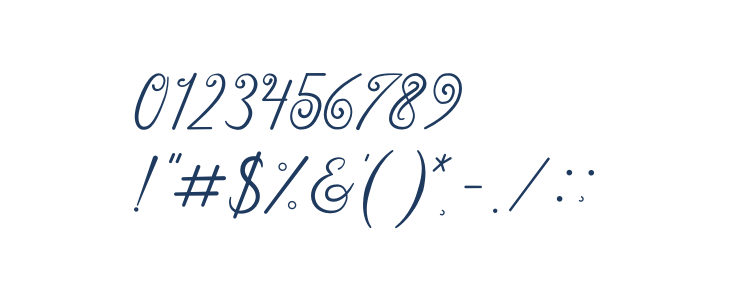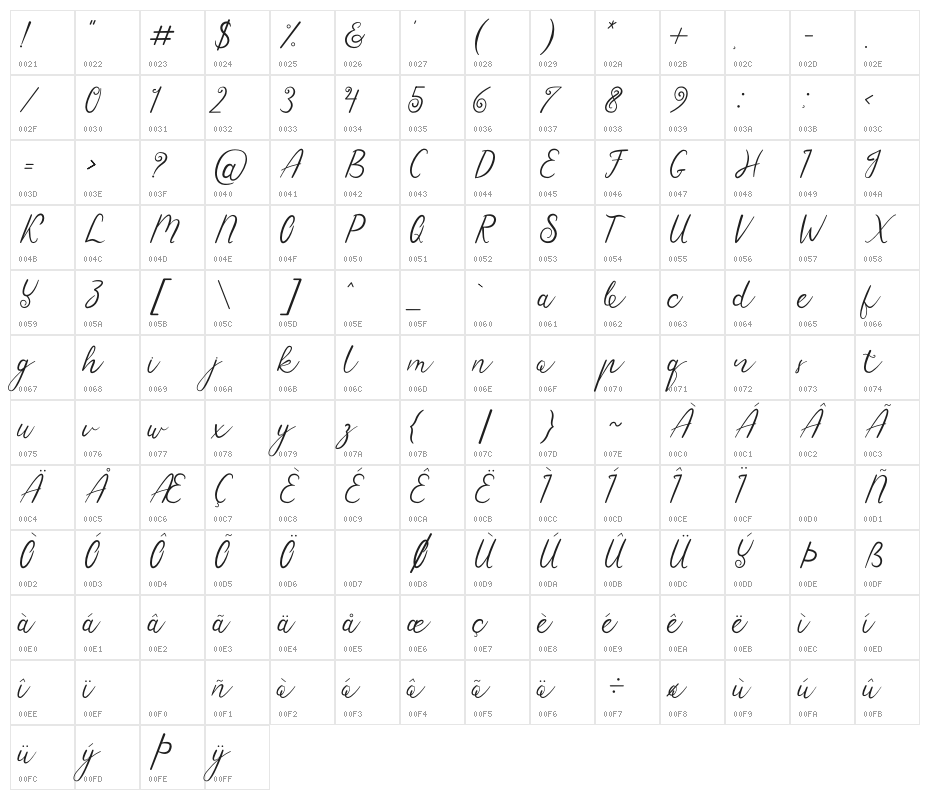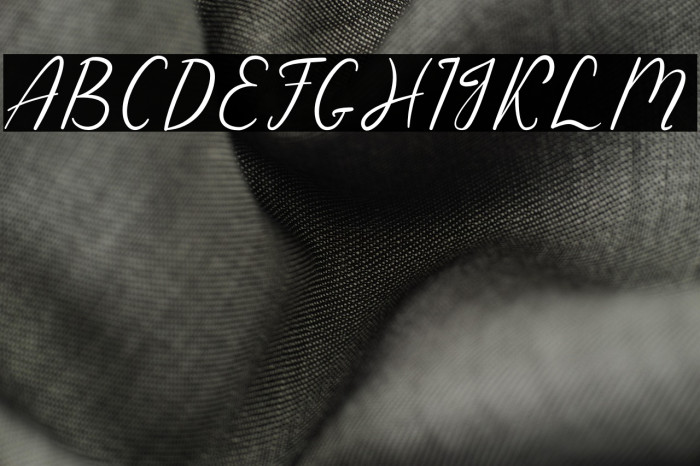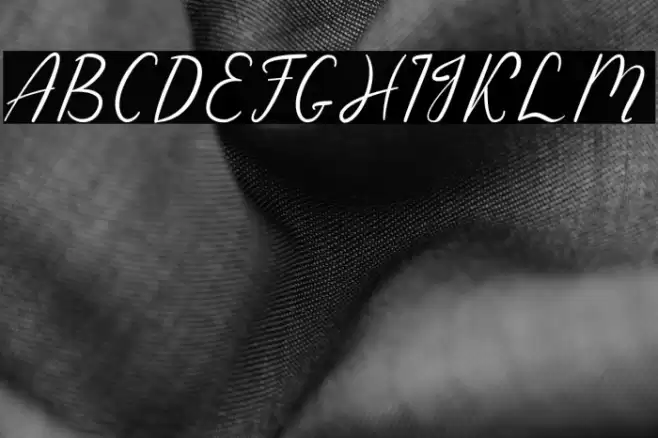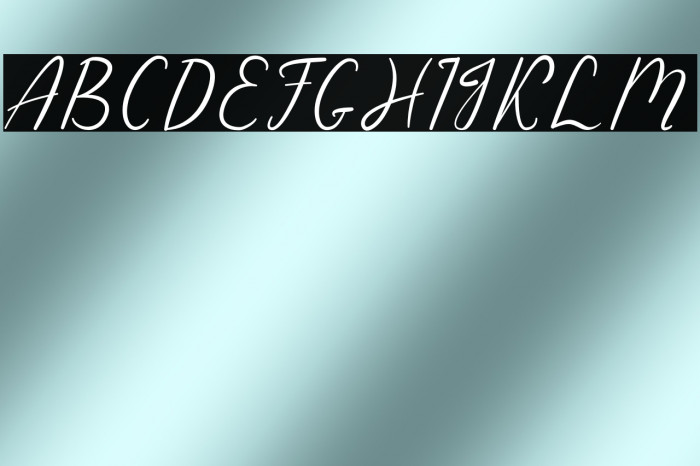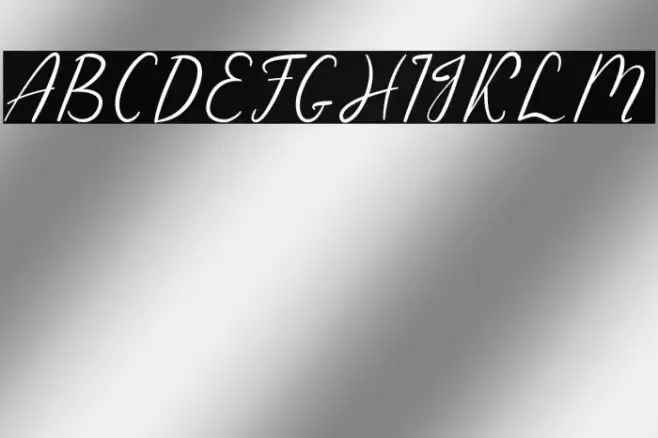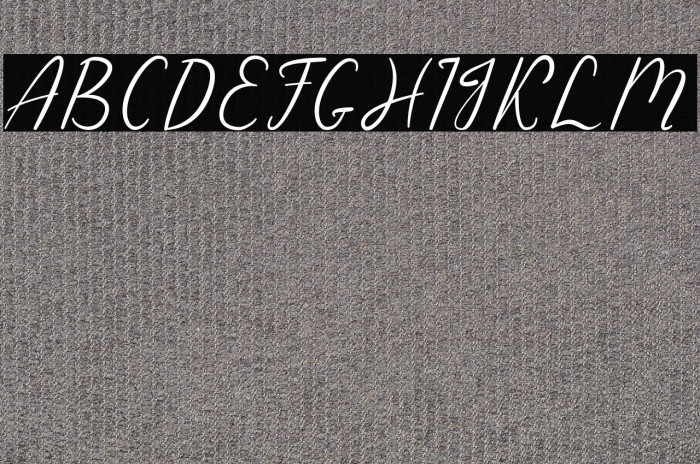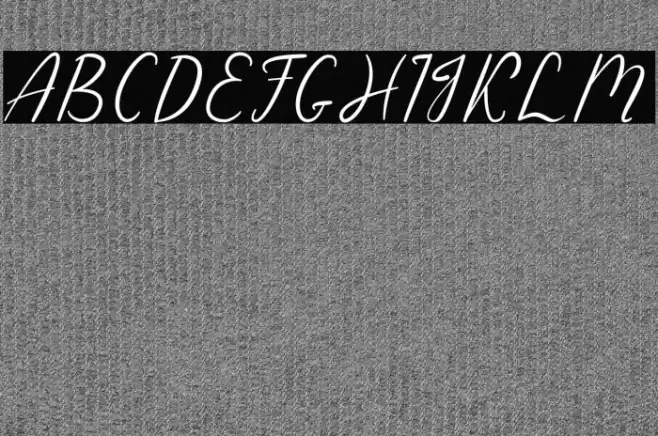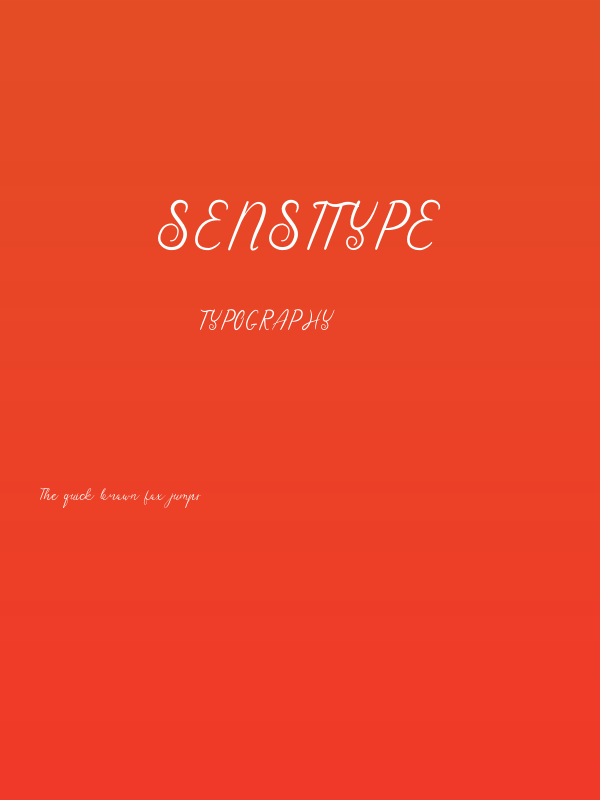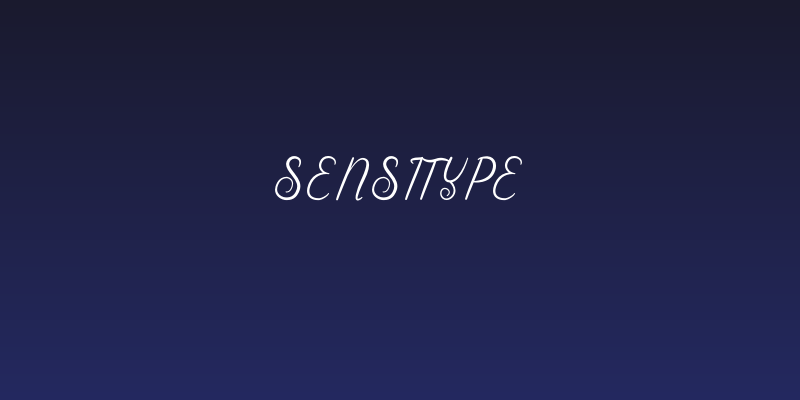
Sensitype Font
This elegant script font features fluid, connected strokes that mimic the natural flow of handwriting. The uppercase letters are slightly more formal, with graceful curves and loops, while the lowercase letters maintain a consistent, flowing style. The numerals are distinct and easy to read, with a slight slant that matches the overall cursive aesthetic. Special characters are thoughtfully designed to integrate seamlessly with the letters, enhancing the font's versatility. The font's smooth lines and balanced proportions make it suitable for a variety of applications, from invitations to branding.
Overall StyleElegant
Use CaseInvitations, Branding, Artistic projects
Proposed ProjectsIdeal for wedding invitations, elegant branding, personal stationery, and artistic projects.